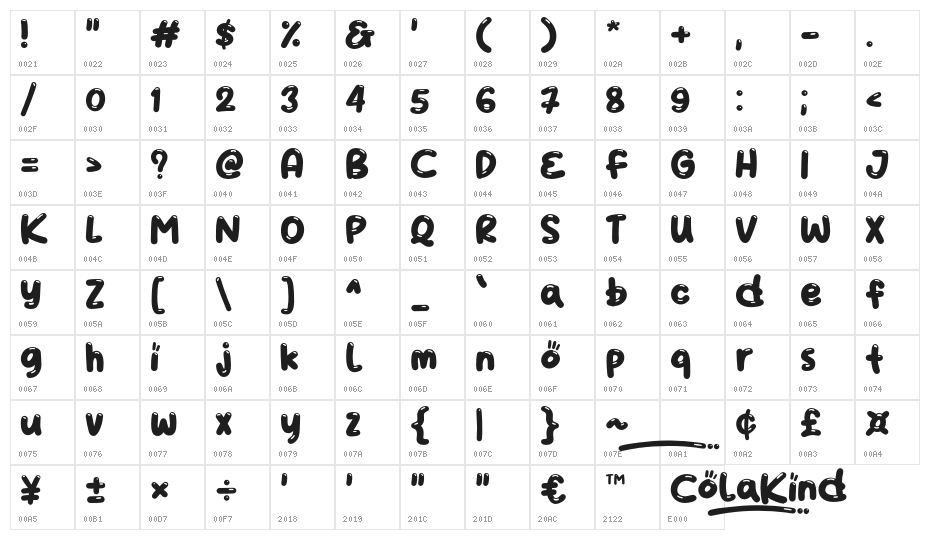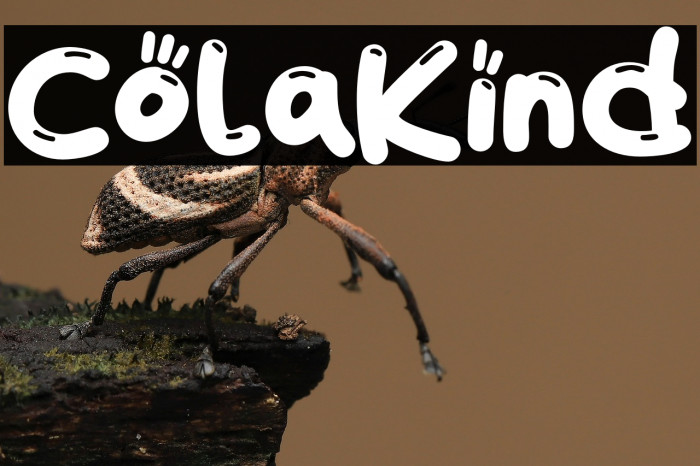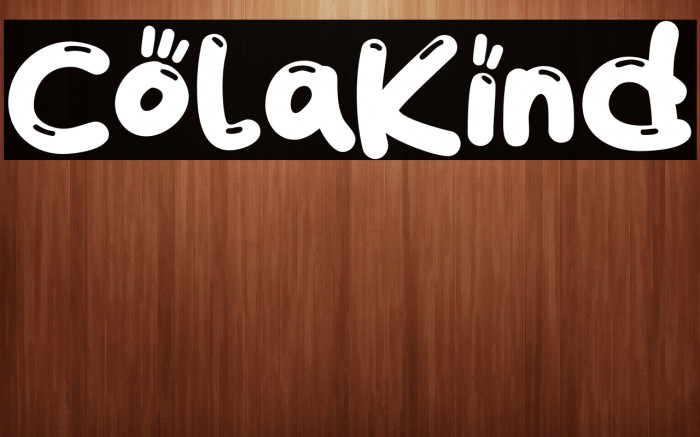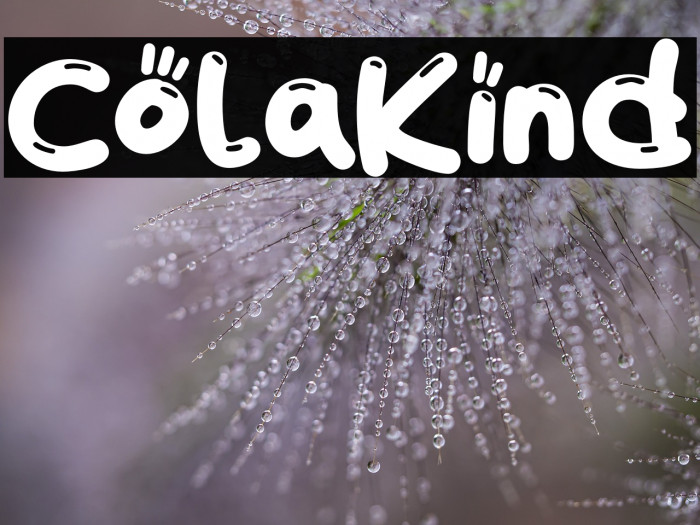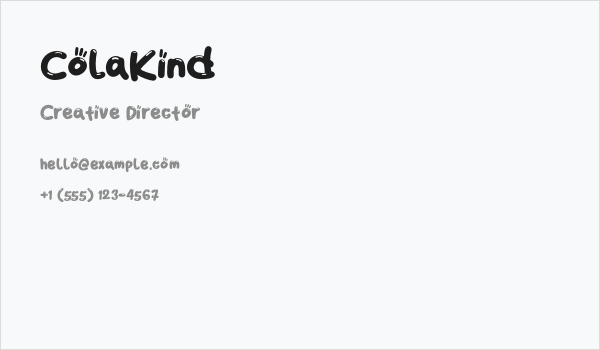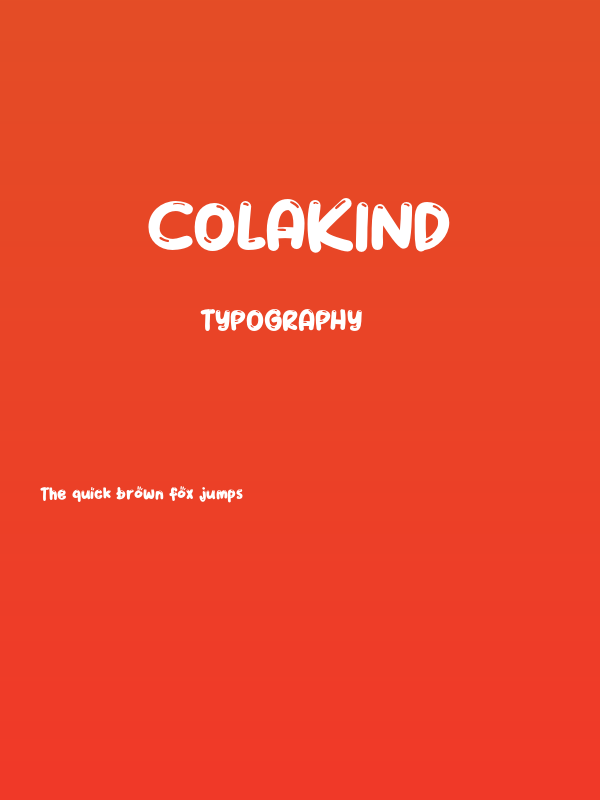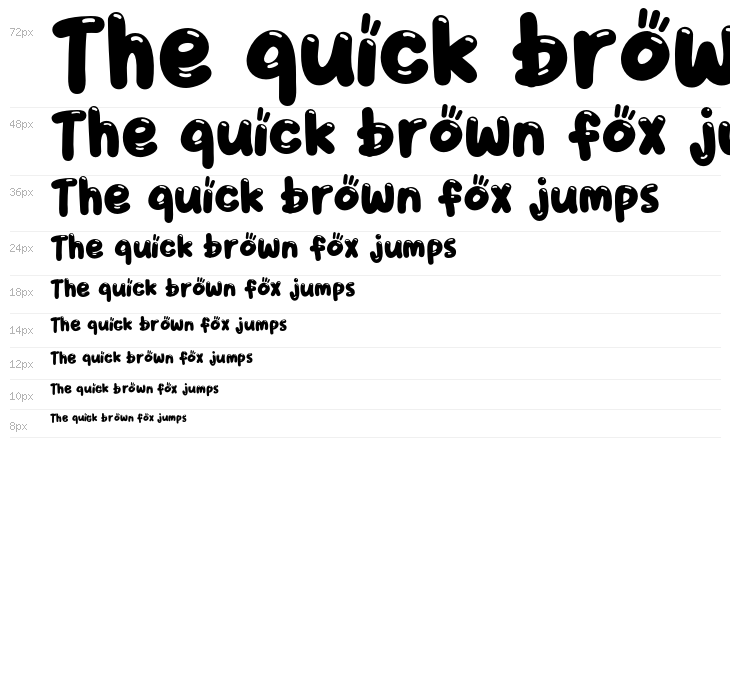
ColaKind Font
ColaKind Description
This playful and bold font features rounded, bubbly characters with a whimsical touch. The letters are thick and have a consistent stroke width, giving them a cartoonish and friendly appearance. The font includes both uppercase and lowercase letters, as well as numbers and a variety of special characters. Its design is characterized by a smooth, flowing style that maintains readability while adding a sense of fun and creativity. The rounded edges and uniform thickness make it ideal for projects that require a lighthearted and approachable aesthetic.